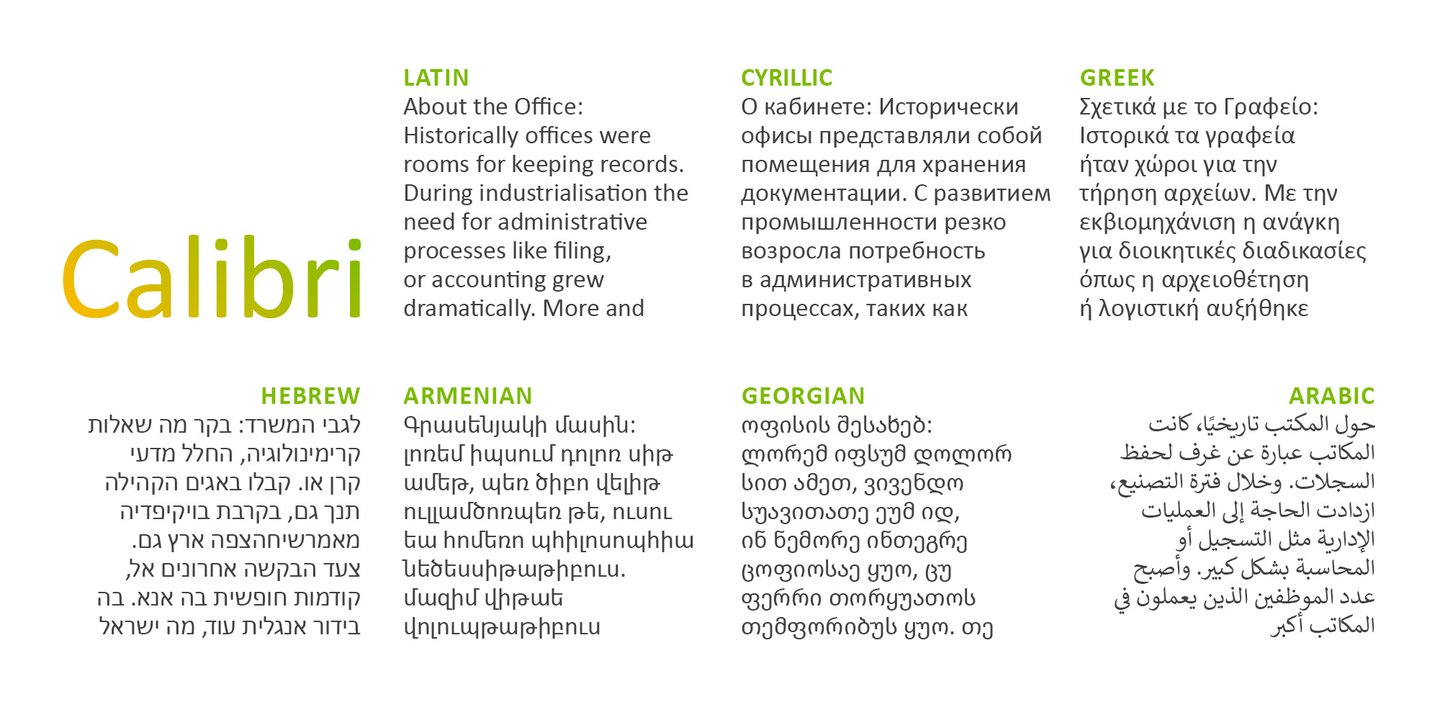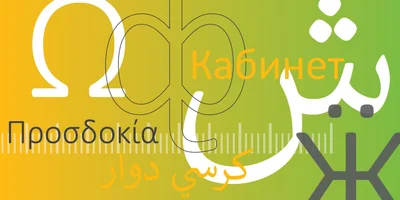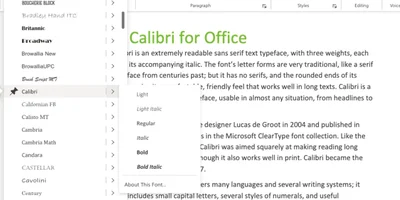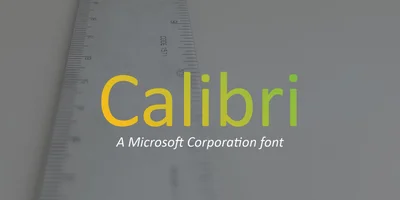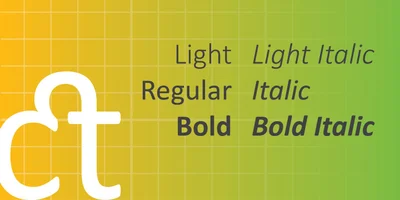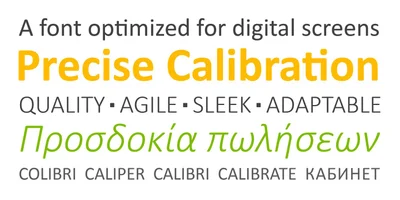
Acumin vs Calibri
Acumin and Calibri are both sans-serif typefaces sharing a modern foundation. Where Acumin leans neo-grotesque, Calibri brings humanist, tech. Compare which suits your Corporate project.
| Feature | Acumin | Calibri |
| Language Support | latin, latin-extended, cyrillic, greek | latin, latin-extended, cyrillic, greek |
| Source | Adobe | Microsoft |
Recommended: Acumin
- neo-grotesque design character
- Suited for Ui and Editorial
- From adobe
Consider: Calibri
- humanist, tech design character
- Suited for Documents and Office
- From microsoft